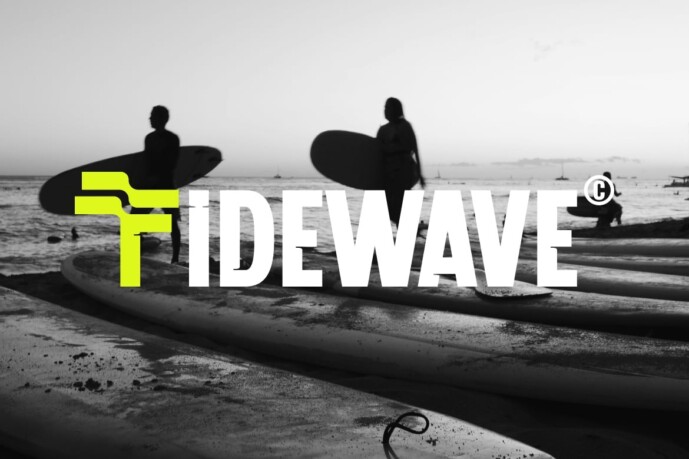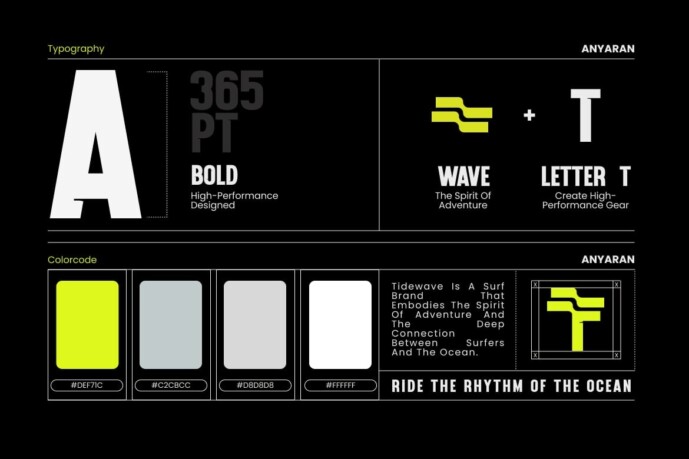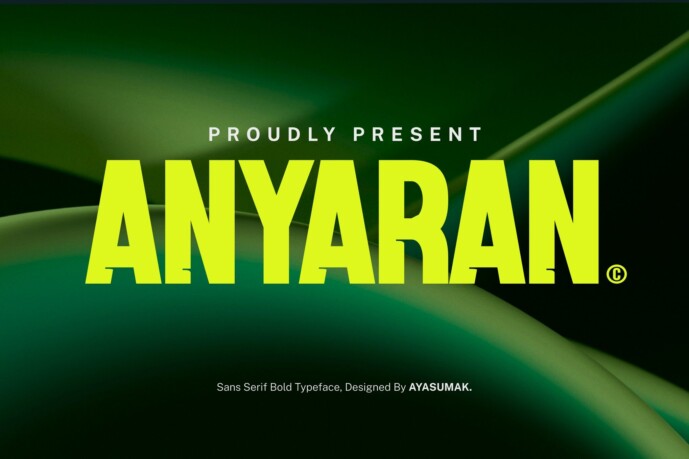
Anyaran Font
Anyaran Font – Luxury Modern Font – a modern professional typeface ideal for headline or title, logo, merchandise, apparel, magazines, corporate, sports, events, tickets and many more.